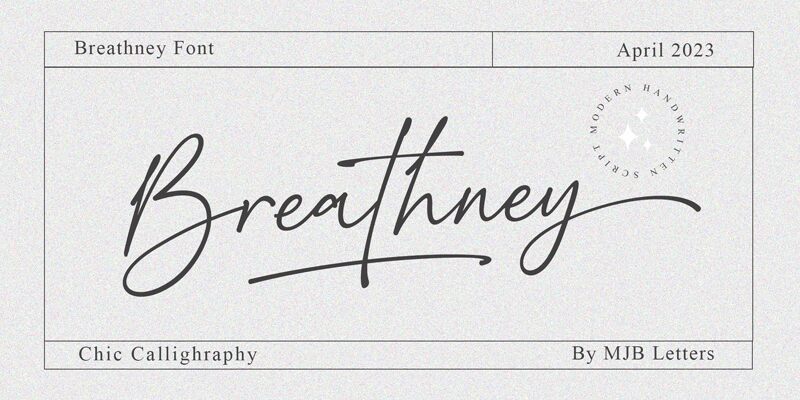
Breathney Demo
Breathney font by MJB Letters is a delightful signature-style typeface. It has elegant, flowing letterforms that exude sophistication. With its cursive design and seamless connections, this font emanates a charming yet informal mood. The high contrast between strokes adds depth and elegance to the graceful, playful curves while the smooth lines create a harmonious visual rhythm.
Use this font to fashion eye-catching logos or craft compelling product packaging designs that channel elegance and style. Create stylish lettering projects like greeting cards or banners. Design merchandise with striking typographic prints that captivate attention in any fashion-forward setting.